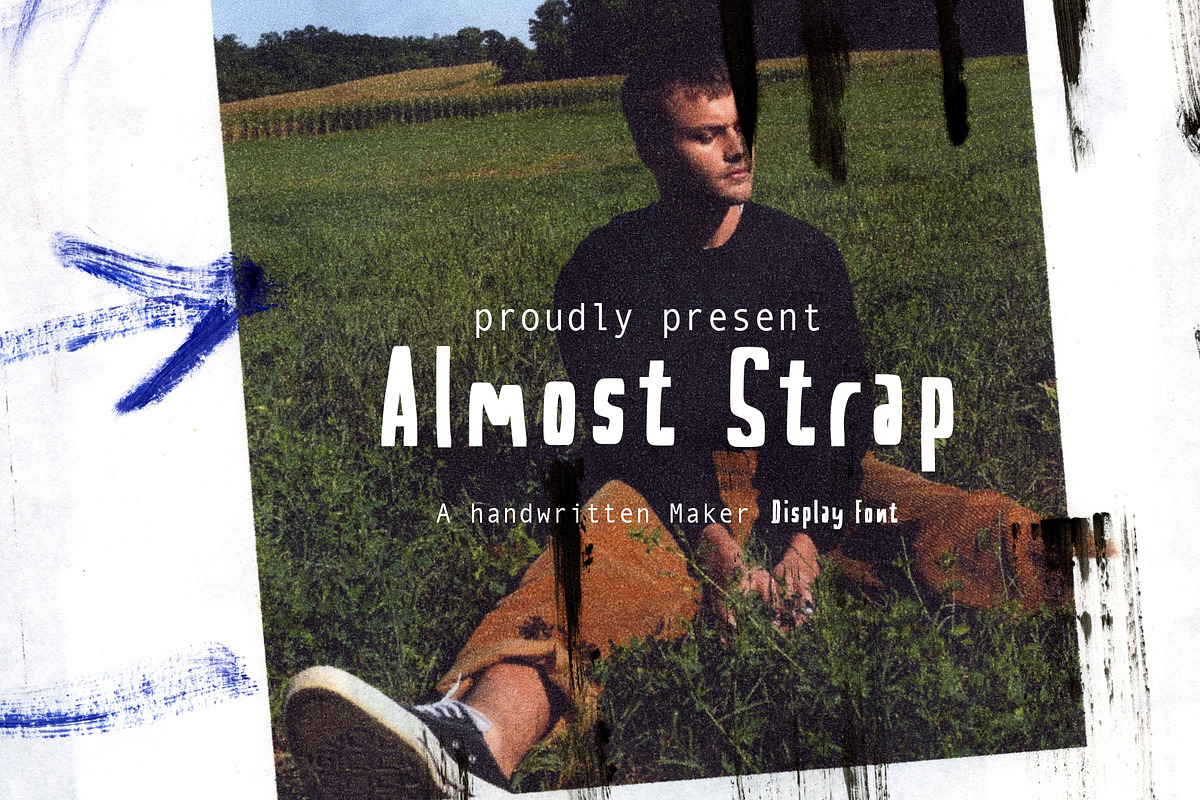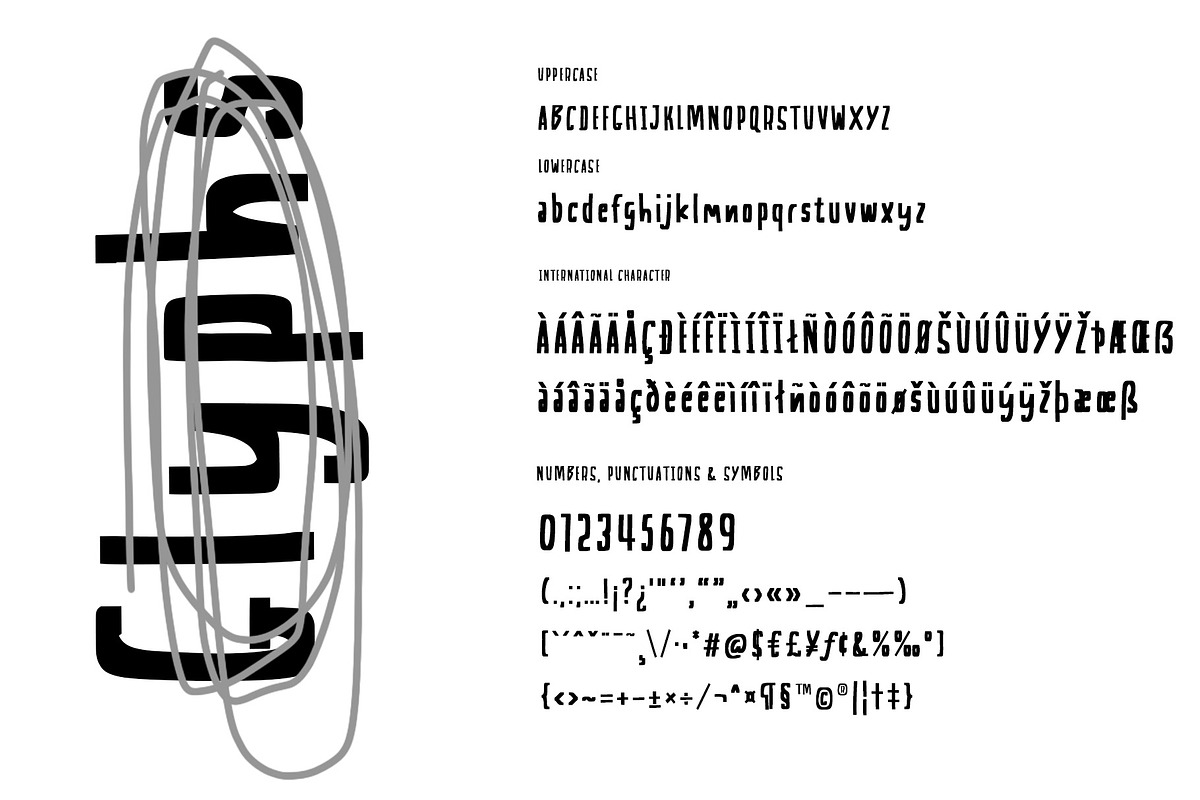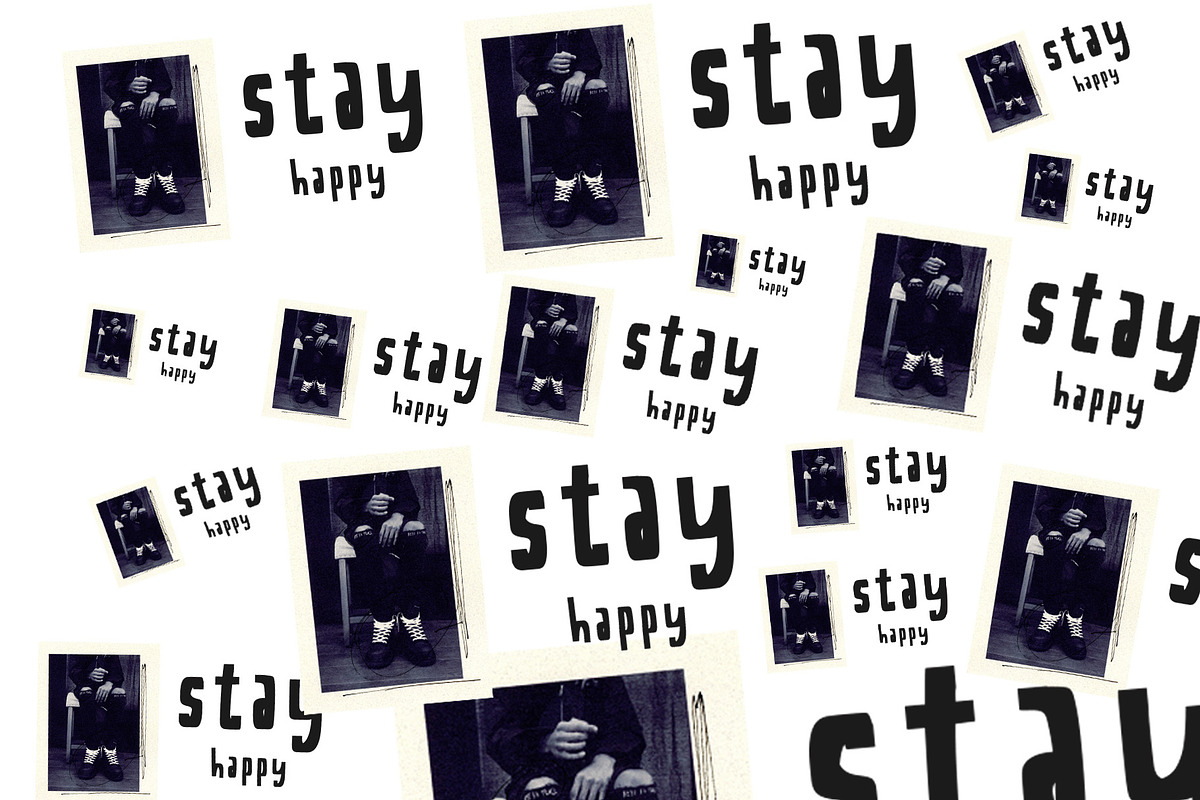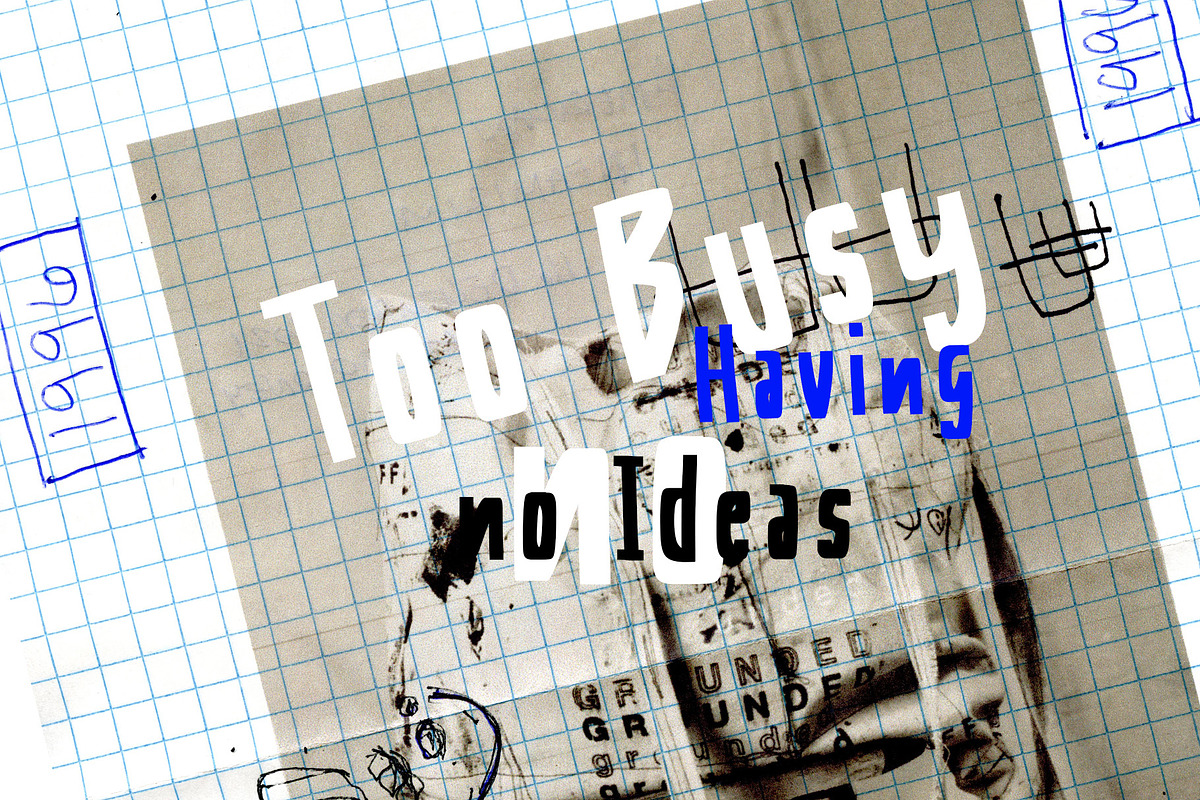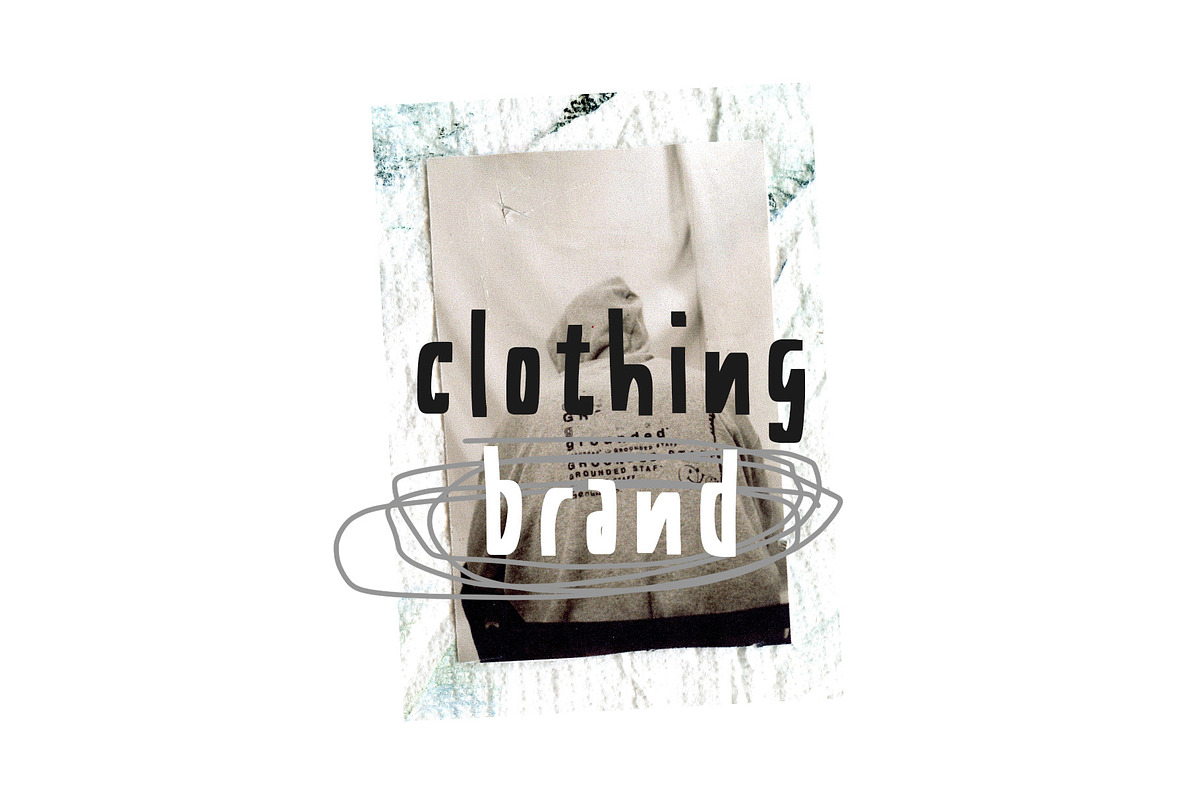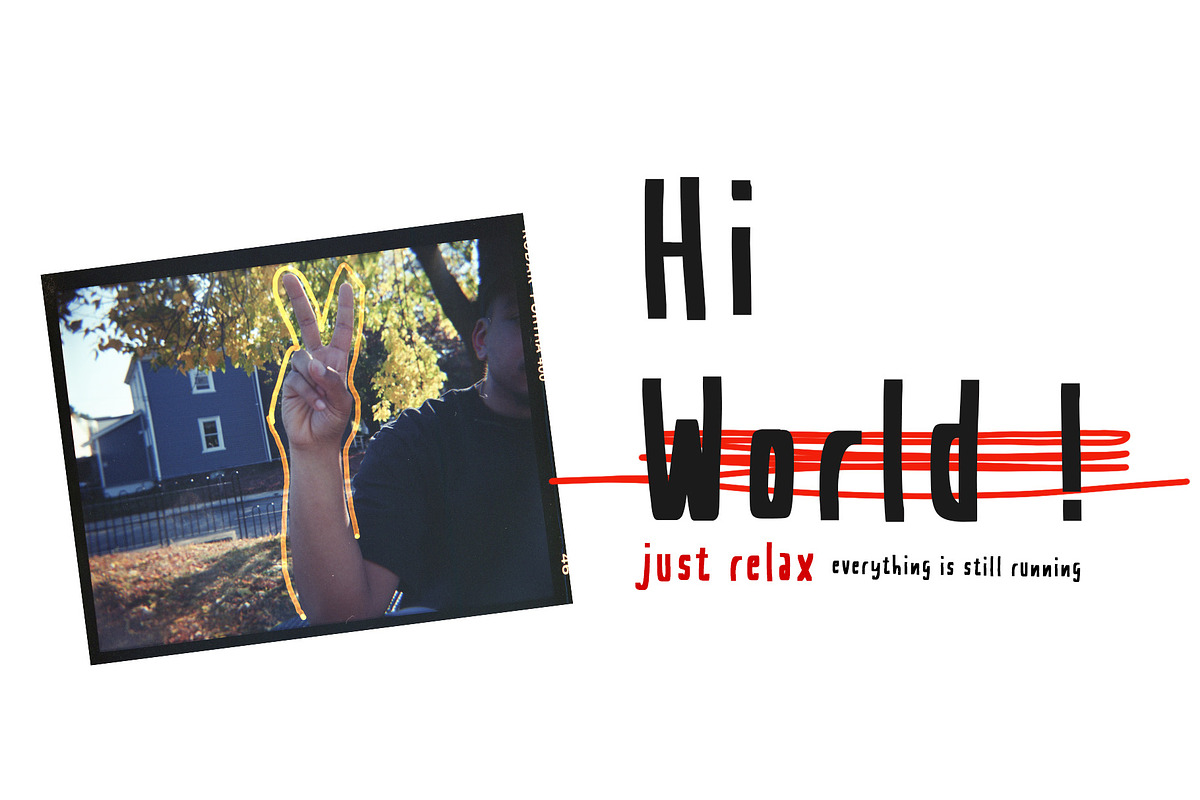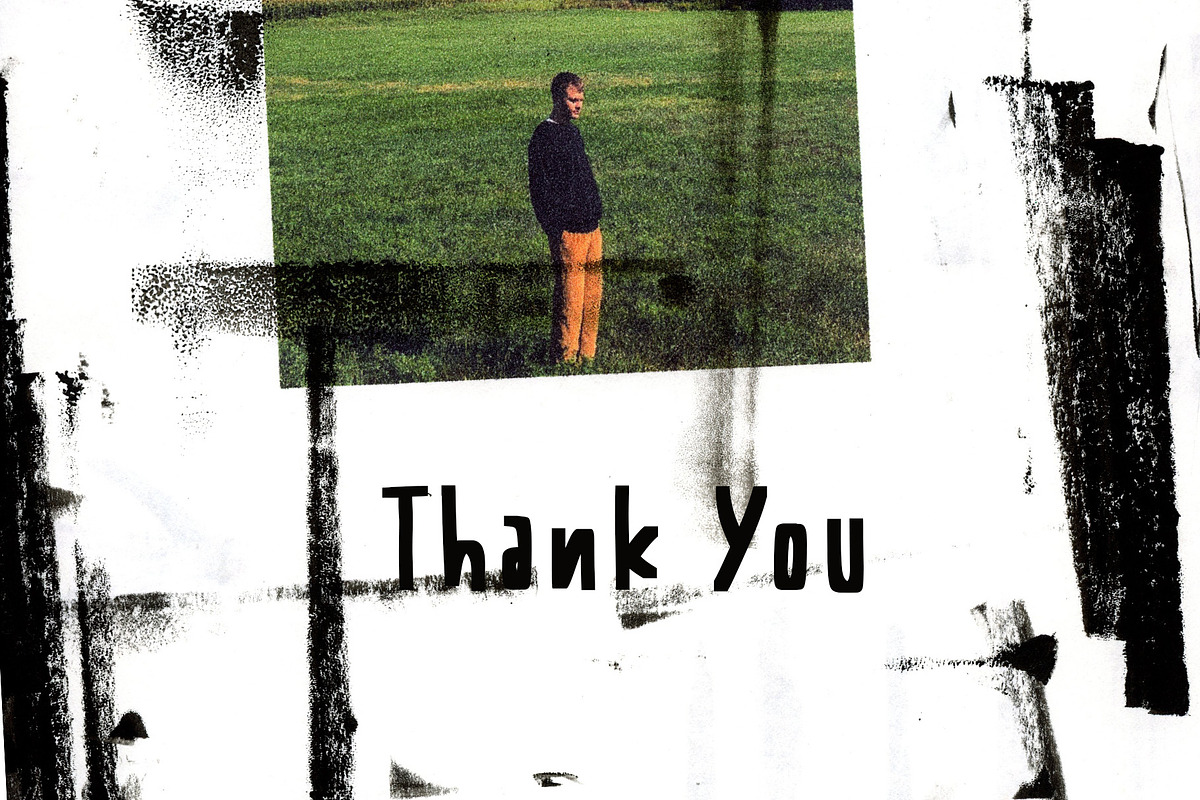
Almost Strap A Stylish Display Font
Almost Strap is a handwriting font inspired by marker pen style, providing a vintage impression with a touch of freshness. This font was born out of the desire to bring back the charm and aesthetics of handwritings that embody warmth and nostalgic memories.
The history behind the creation of the Almost Strap font started with our love for unique and captivating handwriting art. We were inspired by the creative and cheerful touch that comes with using markers on paper, giving a special accent to each letter stroke.
Throughout its development, we aimed to create a harmonious blend of vintage vibes and modern freshness. Every letter and character in this font was designed with love and attention, combining classic style with a refreshing twist to make it impressive.
Almost Strap is suitable for various design projects, such as greeting cards, invitations, posters, merchandise, and more, where you want to create a captivating vintage impression while still keeping it modern and vibrant.
We hope that the Almost Strap font will inspire creativity and add a special touch to your designs, bringing a timeless vintage feel and enjoyable freshness. May this font become a valuable element in your design journey.